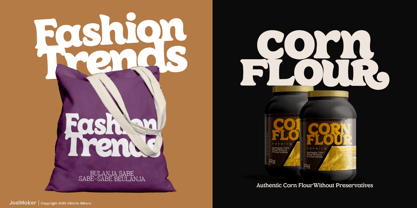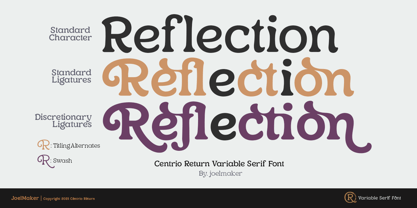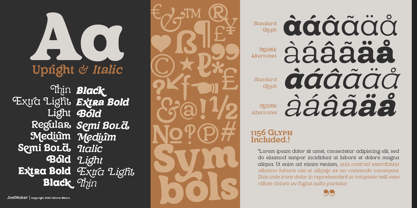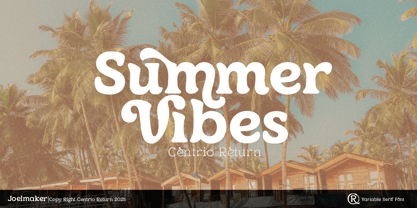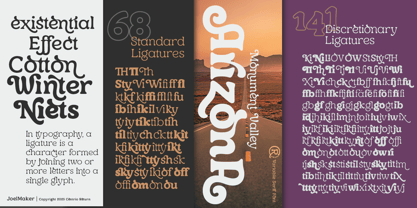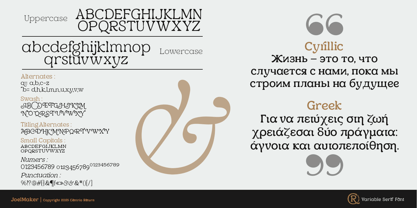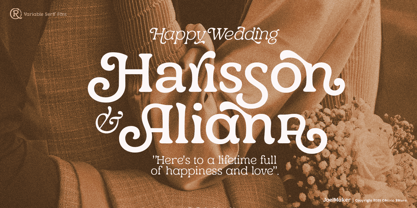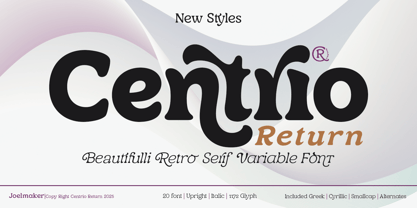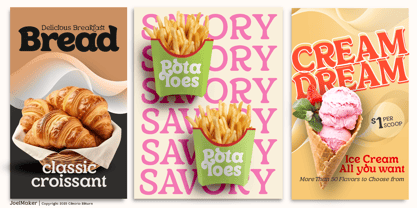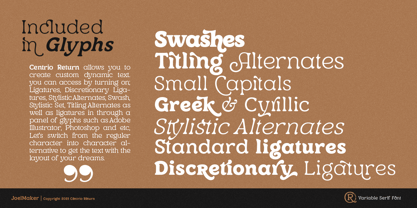
Centrio Return
by Joelmaker
The Centrio Return Font Family was designed by Joelmaker and published by Joelmaker. Centrio Return contains 20 styles and family package options. More about this family
"CENTRIO RETURN" is back with a complete version of "Upright and Italic" with a more artistic, humanistic, elegant, vintage, unique and modern touch, a combination of 80s style with contemporary style makes this letter even more bold and bold, and the addition of a combination of ligatures and alternates on each letter makes the Centrio return letter style even more pleasing to the eye. We remixed this style sensationally to get a Variable Font that is ready to give an elegant and unique impression to your next design project. "Let's make your dream illusion come true with Centrio Return"...
Centrio Return can be used for various purposes such as Magazine Title, Poster, Logo, T-Shirt, Sub Title, Business cards, Magazines, Book Covers, Wedding Invitations,Templates Instagram Story Post, Greeting Cards, Quotes, etc.